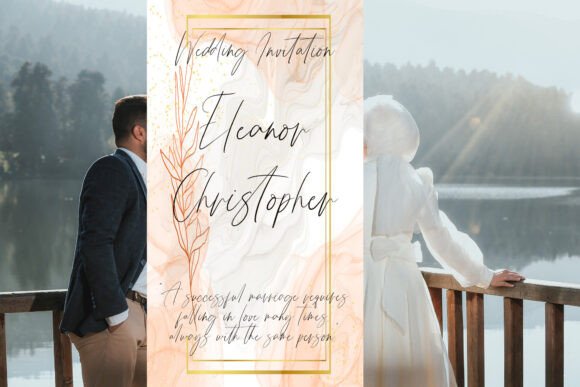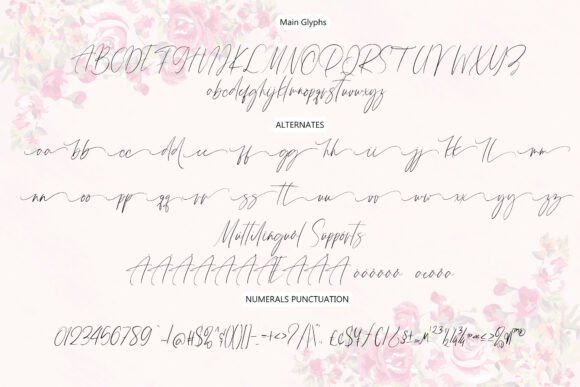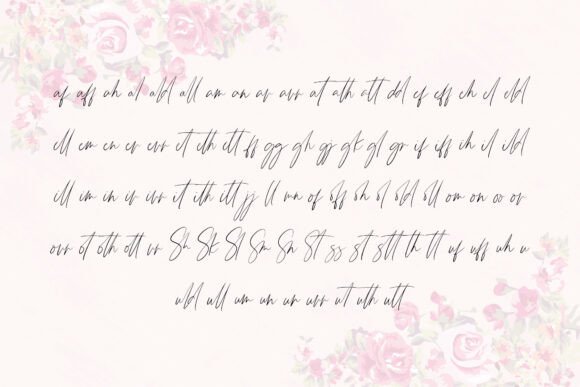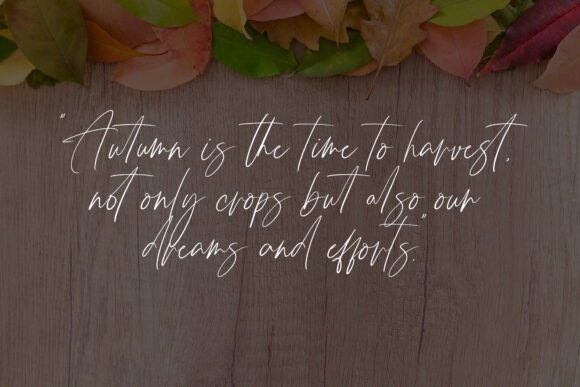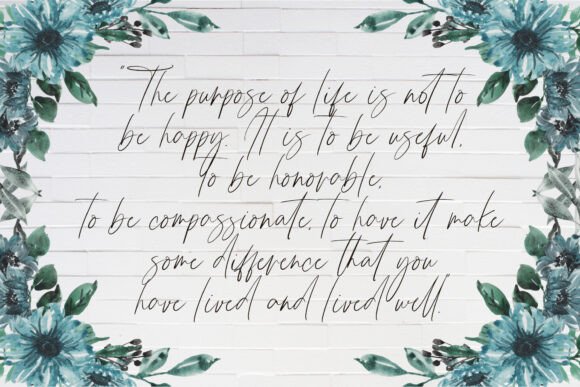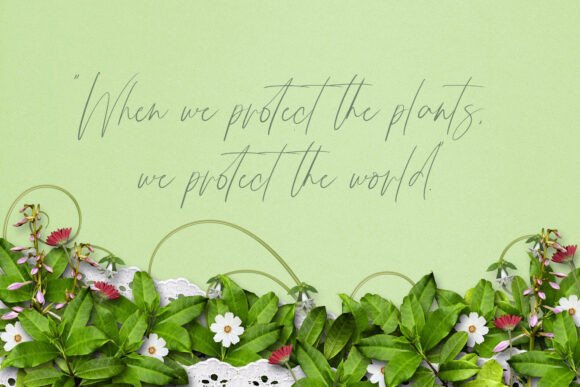
The Elegance of Arnold Books Font: A Designer’s New Best Friend
I’ll never forget the time I was working on a wedding invitation project, and my client asked for a font that was ” elegant, yet playful, and not too fancy.” I scoured the internet, tried out a dozen fonts, but nothing seemed quite right. That was until I stumbled upon Arnold Books Font. With its smooth, flowing letterforms and sophisticated charm, it was love at first sight! In this article, I’ll share my experience with Arnold Books Font, its features, and how to make the most of it in your designs.
- ✨ Elegant and sophisticated letterforms that add a touch of luxury to any design
- ✅ Versatile and suitable for a wide range of projects, from wedding invitations to branding and social media graphics
- 🔥 Smooth flowing connections that give it a hand-lettered feel
- 🎨 A wide range of ligatures and alternates for endless customization
- 🤔 Some users may find the font a bit too delicate for certain design applications
- ⚠️ Limited support for non-English languages
A Practical Guide to Using Arnold Books Font
Arnold Books Font was designed with elegance and versatility in mind. According to the designer, the font was inspired by classic calligraphy and hand-lettering techniques. The goal was to create a font that would add a touch of sophistication and charm to any design.
Q: What is Arnold Books Font?
A: Arnold Books Font is a beautifully crafted script font designed with elegance and versatility in mind.
Q: What is the best way to use Arnold Books Font?
A: Arnold Books Font is perfect for adding a personal touch to your projects, such as wedding invitations, branding, logos, and social media graphics.
Q: Is Arnold Books Font easy to read?
A: Yes, Arnold Books Font is designed to be elegant and easy to read. However, the font’s delicacy may make it less suitable for certain design applications, such as body text.